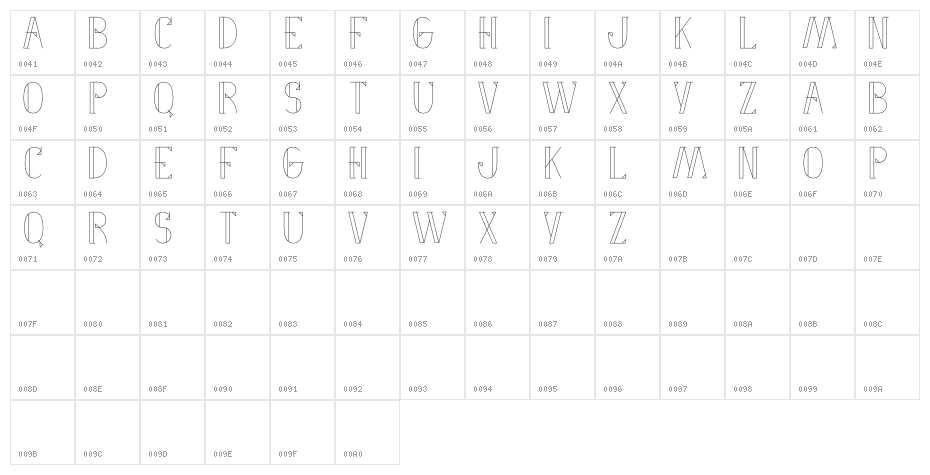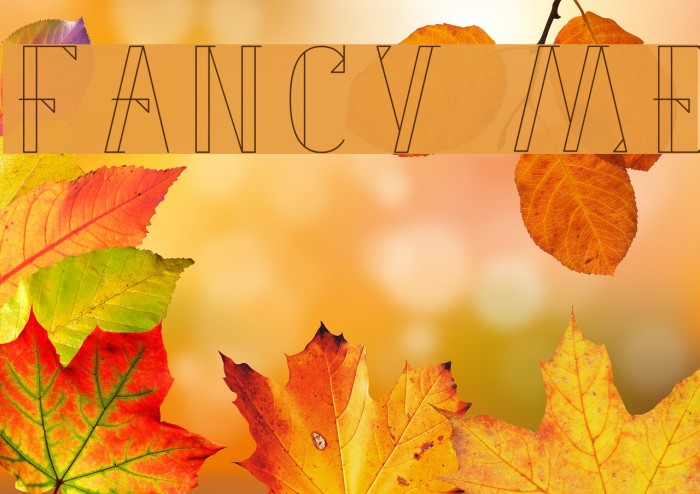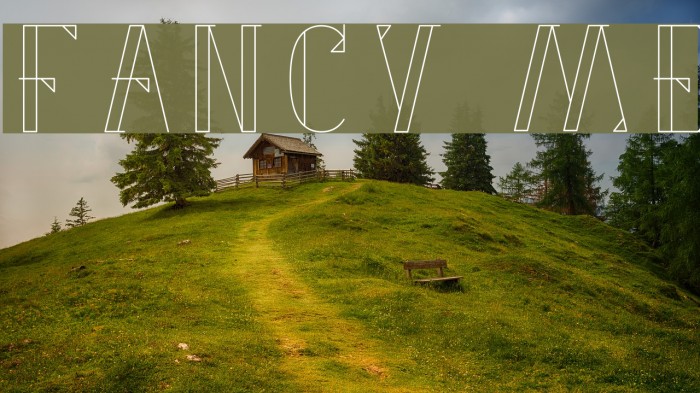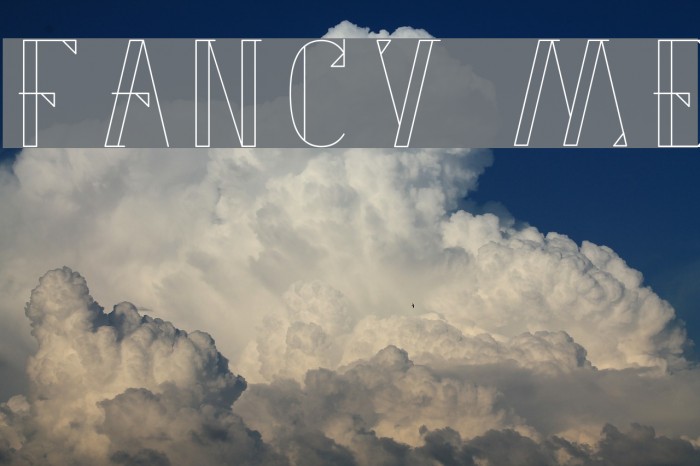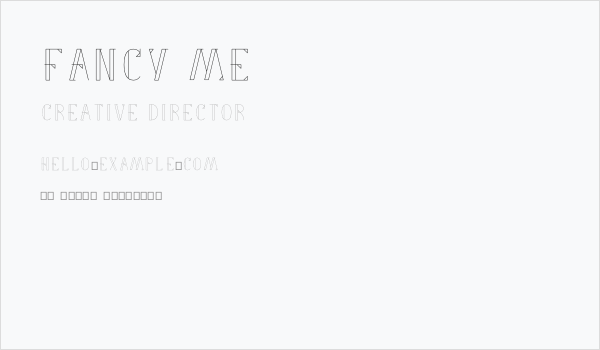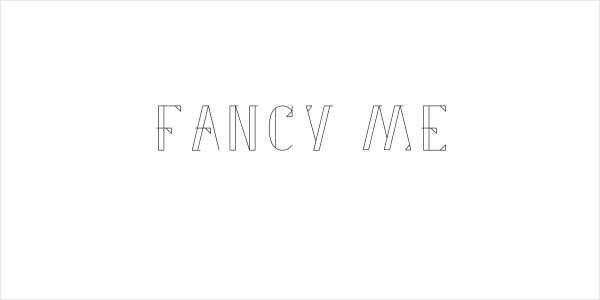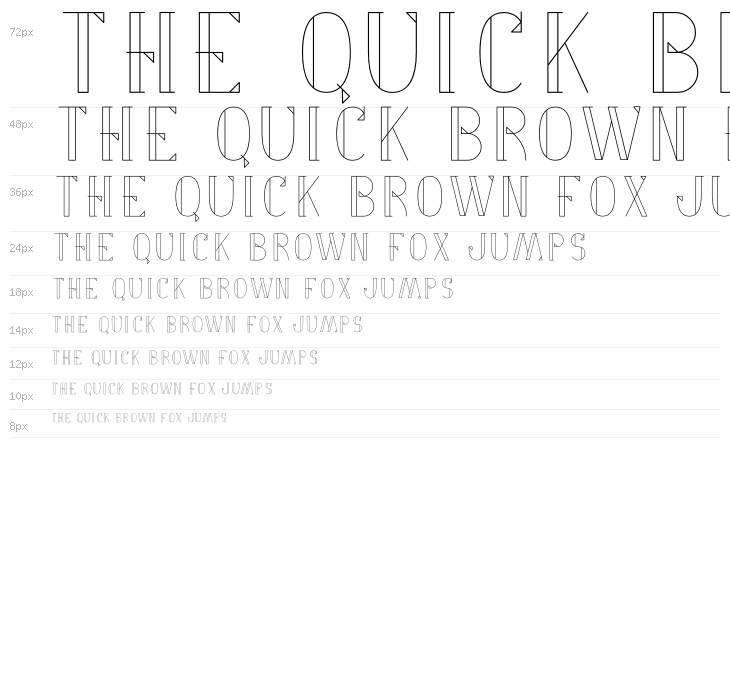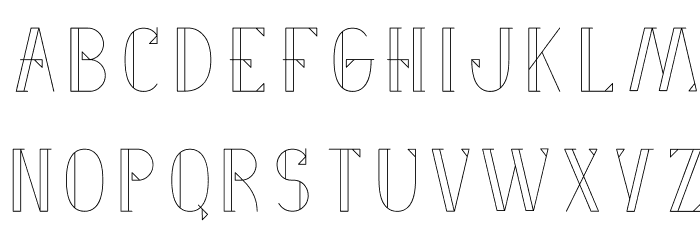
Fancy Me Font
Fancy Me Description
This font features a unique, geometric design with a modern twist. Each letter is constructed with clean, straight lines and sharp angles, creating a sense of precision and style. The uppercase letters are bold and striking, making them ideal for attention-grabbing headlines or logos. The font lacks lowercase letters and numbers, focusing solely on uppercase characters. The special characters are represented by square outlines, adding a decorative element to the overall design. This font is perfect for projects that require a contemporary and sophisticated look, such as branding, posters, or digital media.
| Proposed Projects | Ideal for branding, posters, digital media, and any project requiring a contemporary, stylish look. |